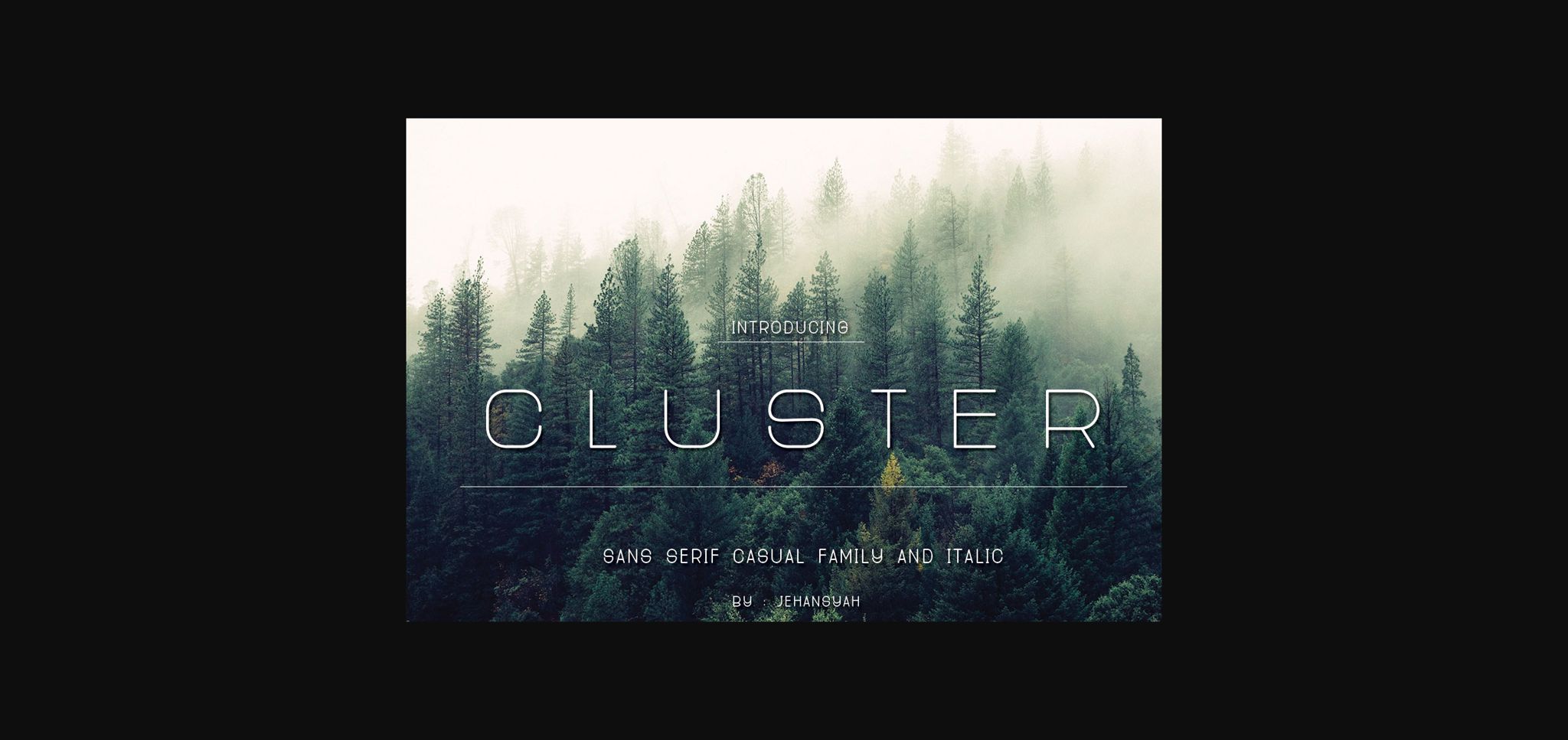
About Cluster Font
Cluster is an elegant and sweet sans serif font. It is perfect for those of you who are looking for tranquility in expressing ideas with a large title, and this font is perfect to be placed anywhere, especially if you use it as a title or in formal writing.